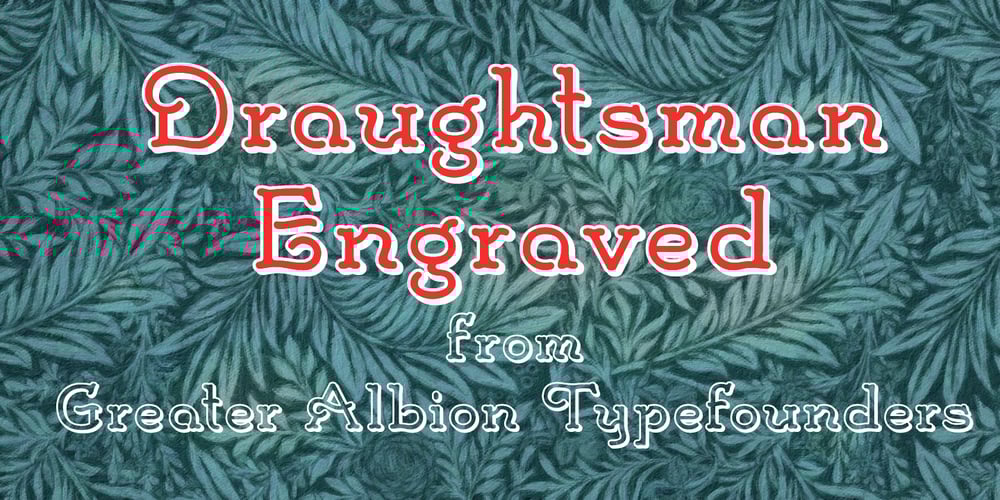
Draughtsman Engraved Font Family was designed by Paul James Lloyd and published by Greater Albion Typefounders. Draughtsman Engraved contains 1 styles and family package options. Draughtsman Engraved, inspired by hand drawn 19th century lettering, is an open shadowed display face, with an extensive range of OpenType features, including ligatures, stylistic alternates, petite and small capitals and old style numerals.Draughtsman Engraved is ideal for headings, initial capitals and anywhere a touch of distinction is needed.